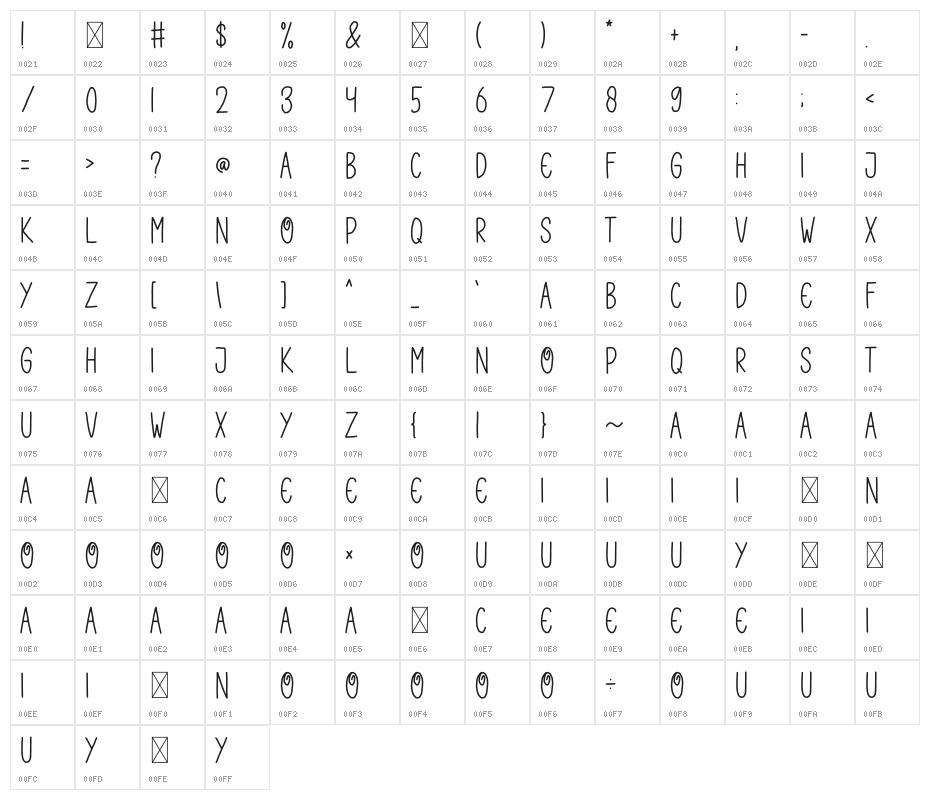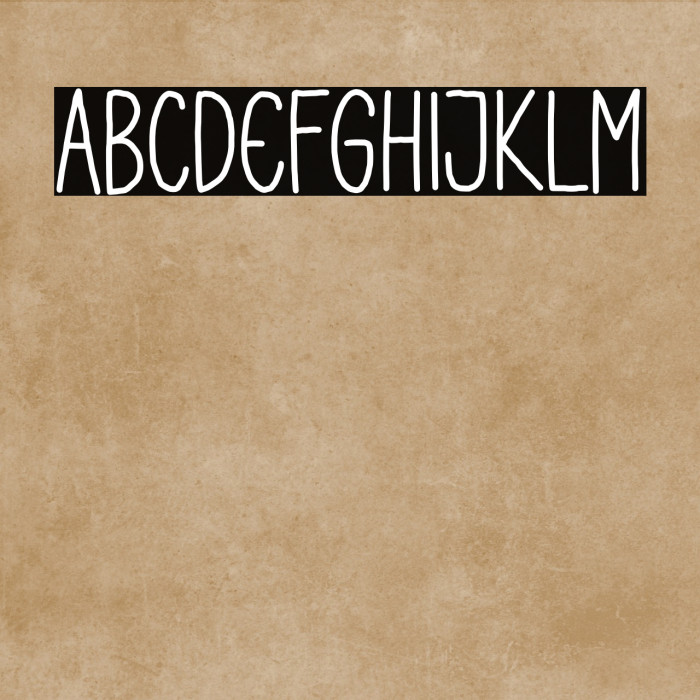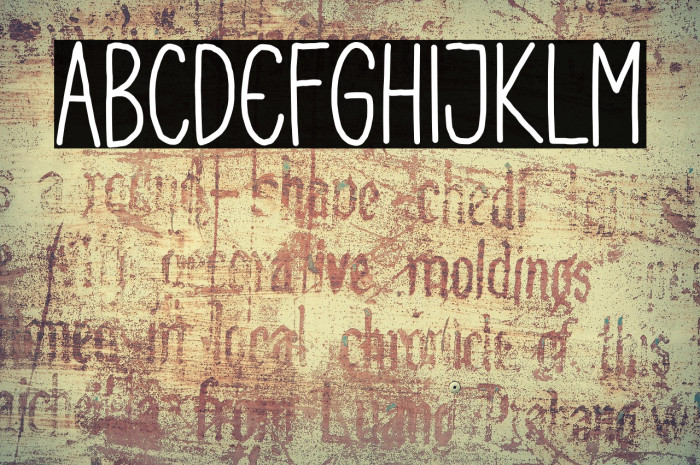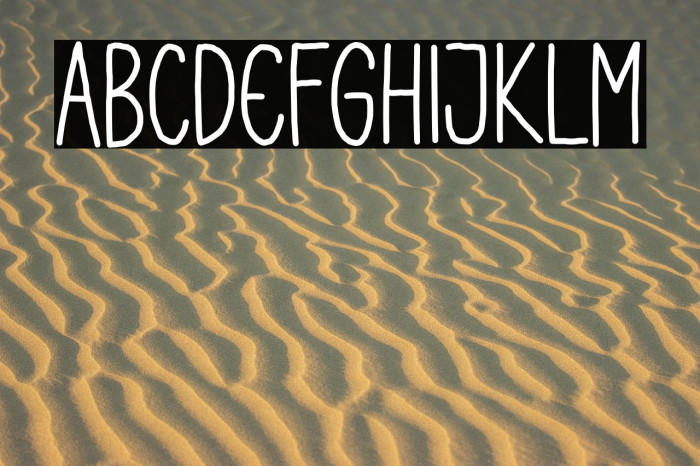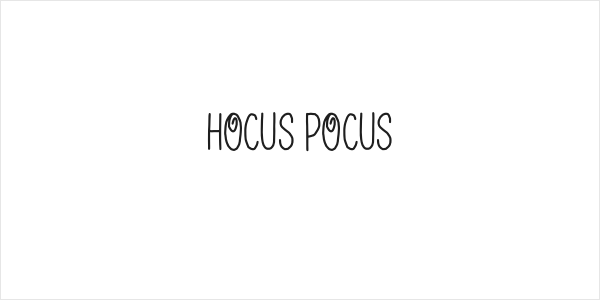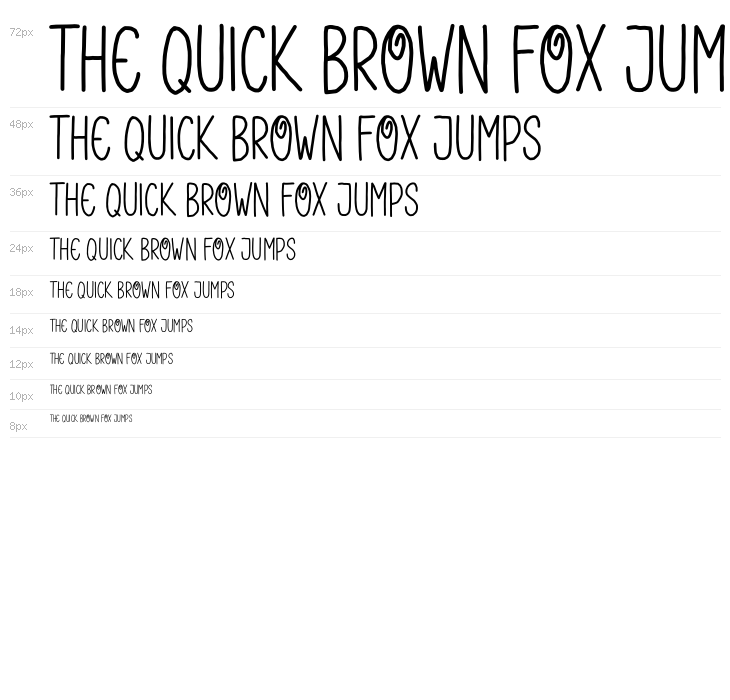
HOCUS POCUS Font
HOCUS POCUS Description
This font features a playful and whimsical handwritten style with tall, narrow letters. The strokes are consistent in thickness, giving it a clean and uniform appearance. The characters are slightly irregular, adding a touch of charm and personality. The uppercase and lowercase letters maintain a cohesive look, while the numerals and special characters blend seamlessly with the overall design. This font is ideal for projects that require a casual and friendly tone, such as children's books, greeting cards, or playful branding.
| Proposed Projects | Ideal for children's books, greeting cards, playful branding, and casual invitations. |